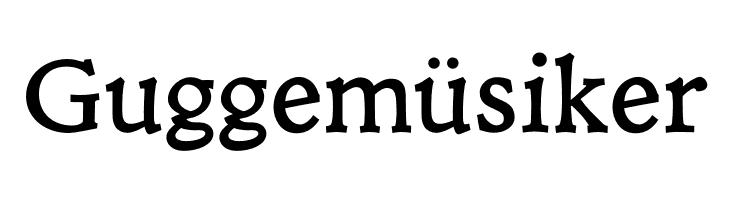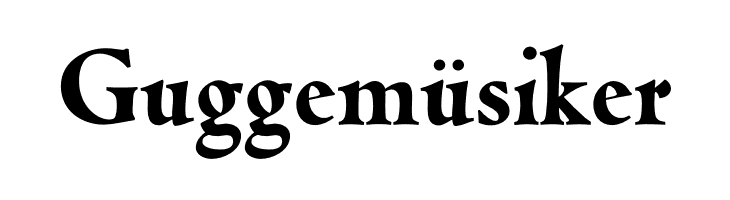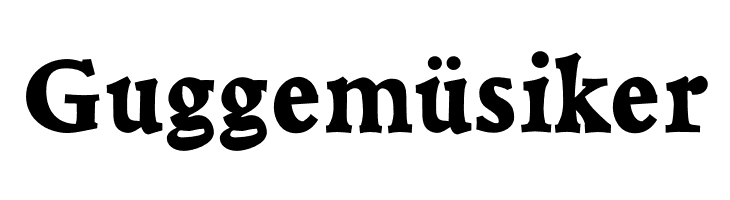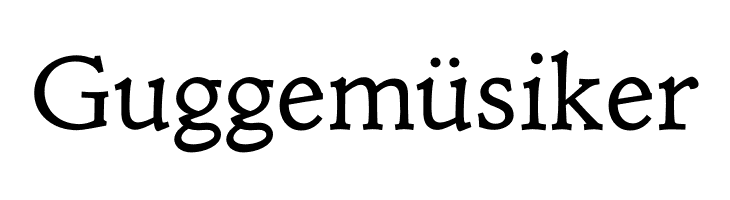
• Coelacanth Pearl
A classic serif font with a vintage flair, offering elegance and readability.
• Coelacanth Pearl Bold
A bold serif font with a handcrafted, slightly irregular style.
• Coelacanth Pearl ExtraLight
A classic serif font with a modern twist, featuring elegant curves and refined details.
• Coelacanth Pearl Heavy
A bold, distinctive serif font with a classic yet modern flair.
• Coelacanth Pearl Light
A classic serif font with elegant, slightly flared serifs and a modern touch.
• Coelacanth Pearl Semibold
A classic serif font with semi-bold weight and moderate contrast, ideal for traditional designs.
• Coelacanth Semibold
A classic serif font with an artistic, hand-crafted appearance.
• Coelacanth Subcaption
A classic serif font with elegant, well-defined characters and slight stroke contrast.
• Coelacanth Subcaption Bold
A bold, classic serif font with high contrast and angular serifs.
• Coelacanth Subcaption ExtraLight
A refined serif font with a light, elegant style and modern readability.
• Coelacanth Subcaption Heavy
A bold, serif font with angular serifs and a strong, distinctive style.
• Coelacanth Subcaption Light
A classic serif font with light weight and elegant, elongated characters.
• Coelacanth Subcaption Semibold
A classic serif font with medium contrast and a whimsical touch.
• Coelacanth Subheading
A classic serif font with elegant, sharp serifs and a traditional yet modern appeal.
• Coelacanth Subheading Bold
A bold serif font with a classic and slightly whimsical style.
• Coelacanth Subheading ExtraLight
An elegant and whimsical serif font with refined curves and sharp serifs.
• Coelacanth Subheading Heavy
A bold, high-contrast serif font with dramatic and elegant features.
• Coelacanth Subheading Light
A classic serif font with elegant, thin strokes and a sophisticated appearance.
• Coelacanth Subheading Semibold
A classic serif font with elegant curves and a semi-bold weight.